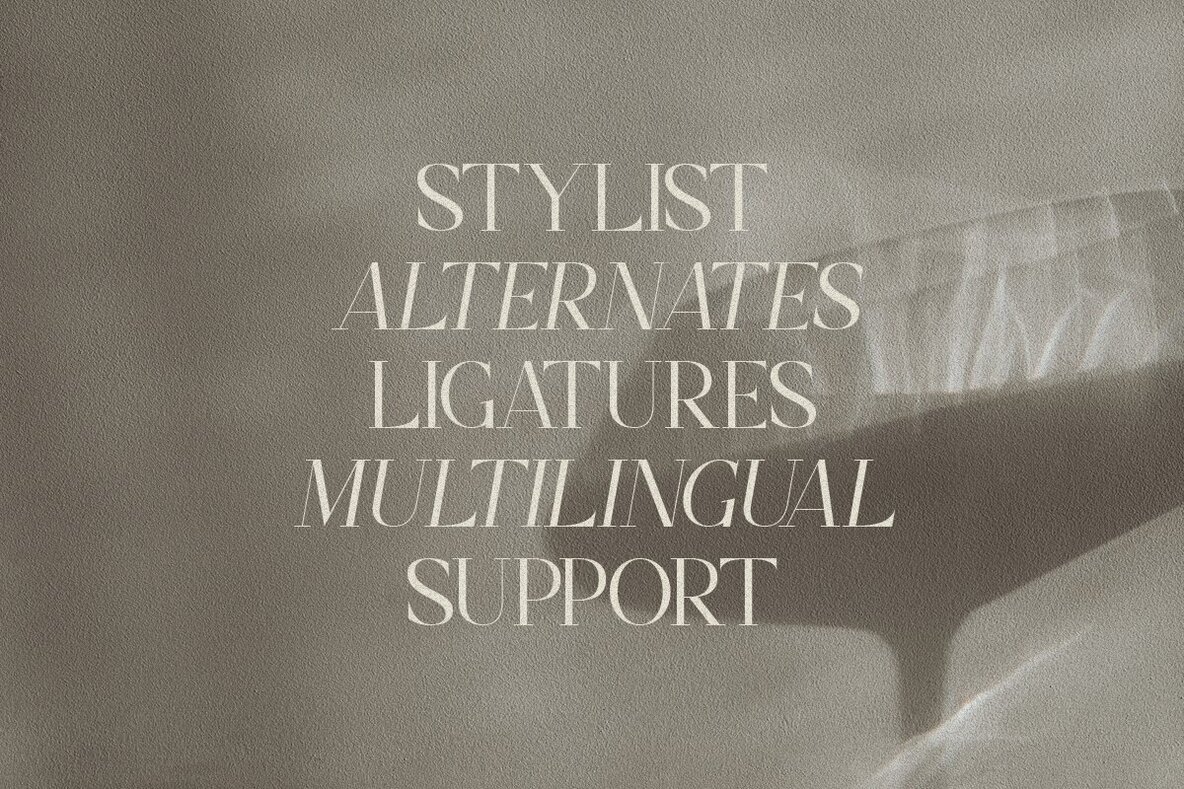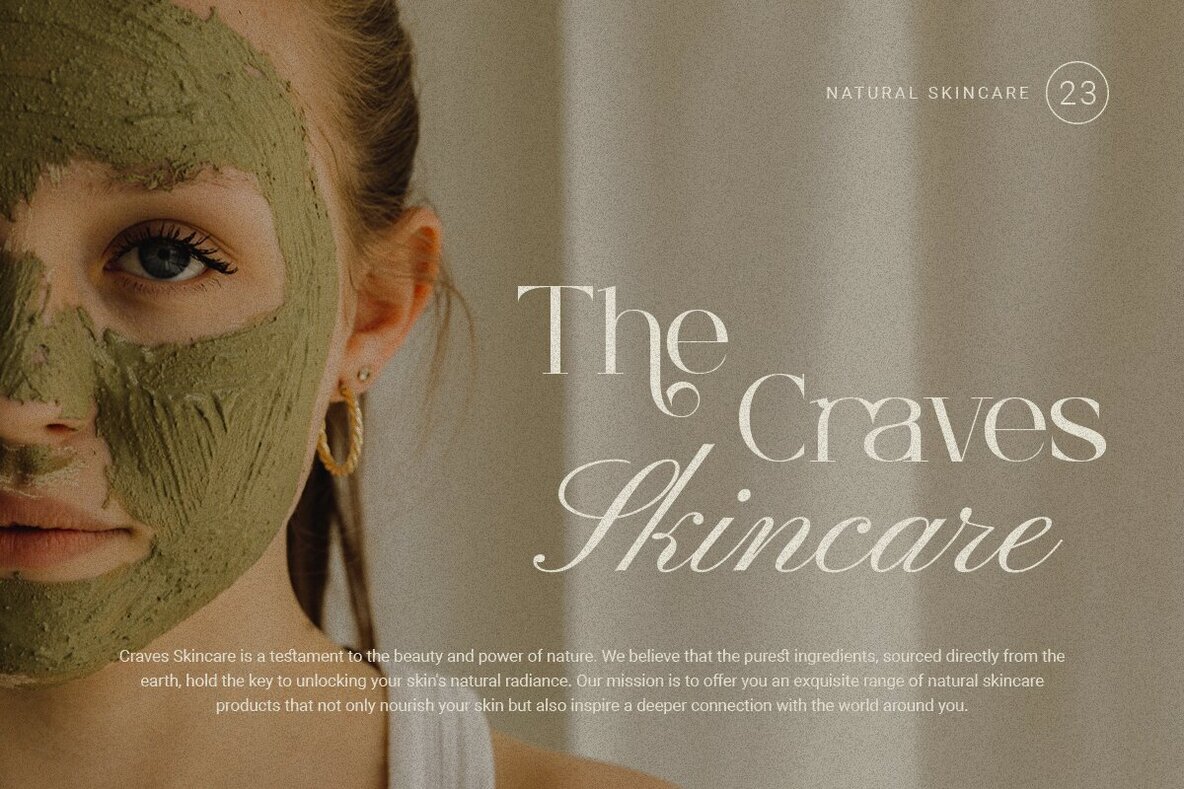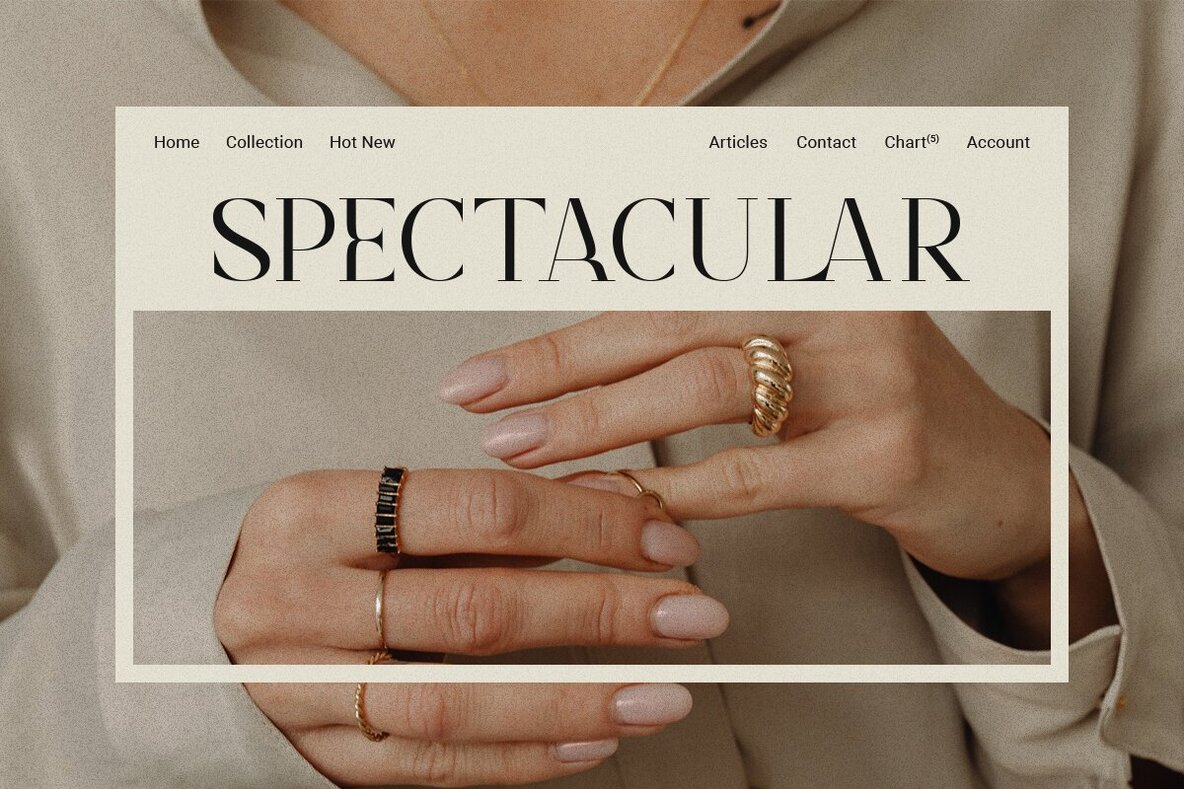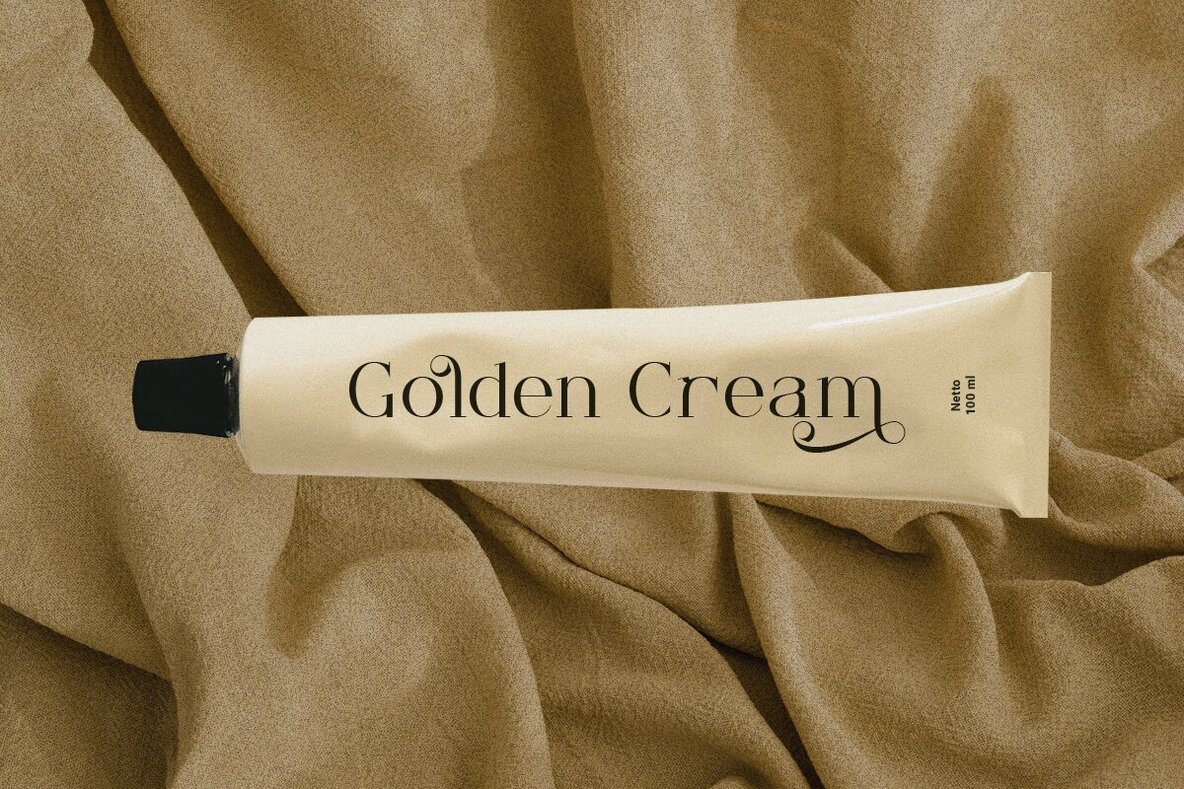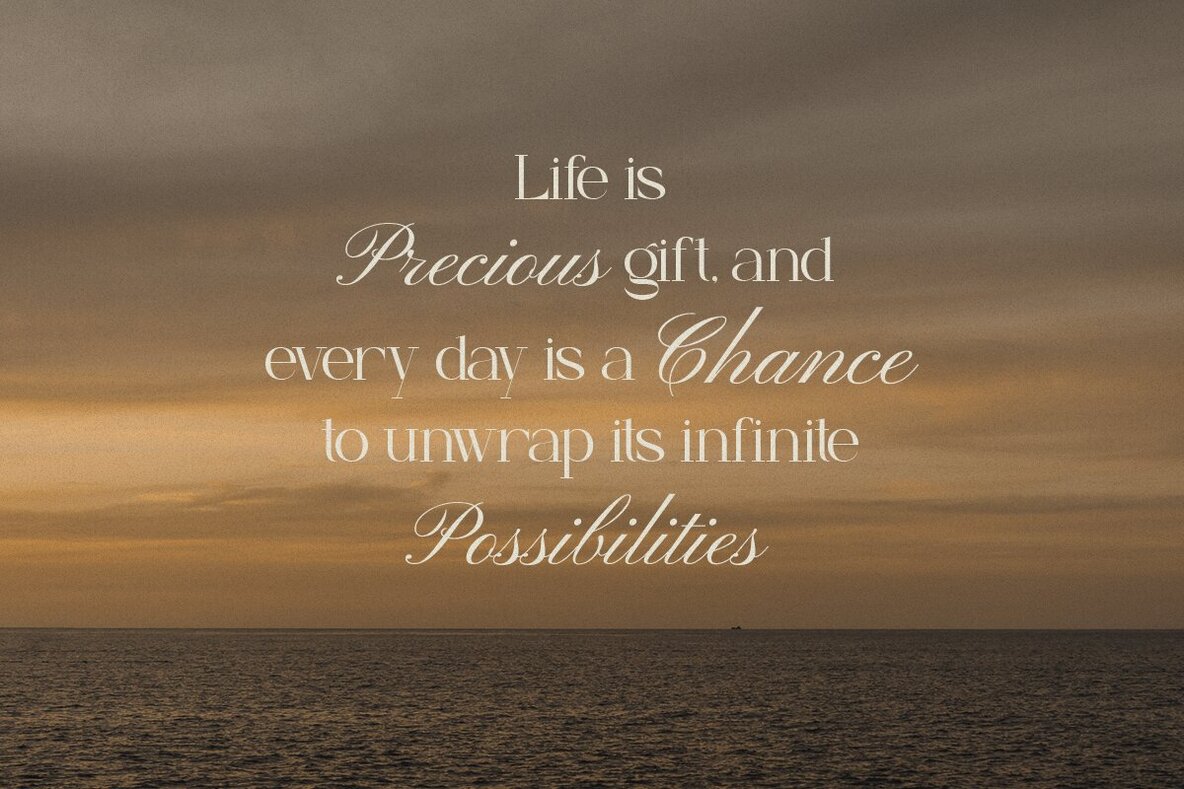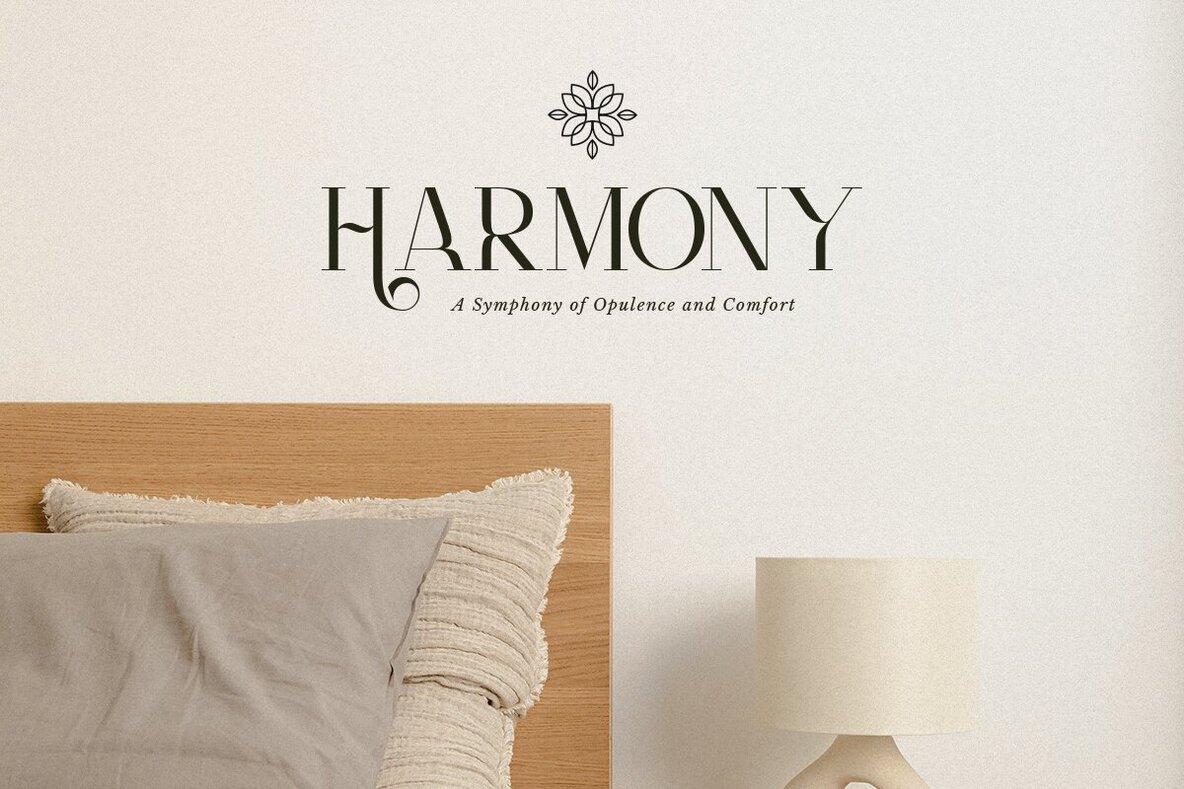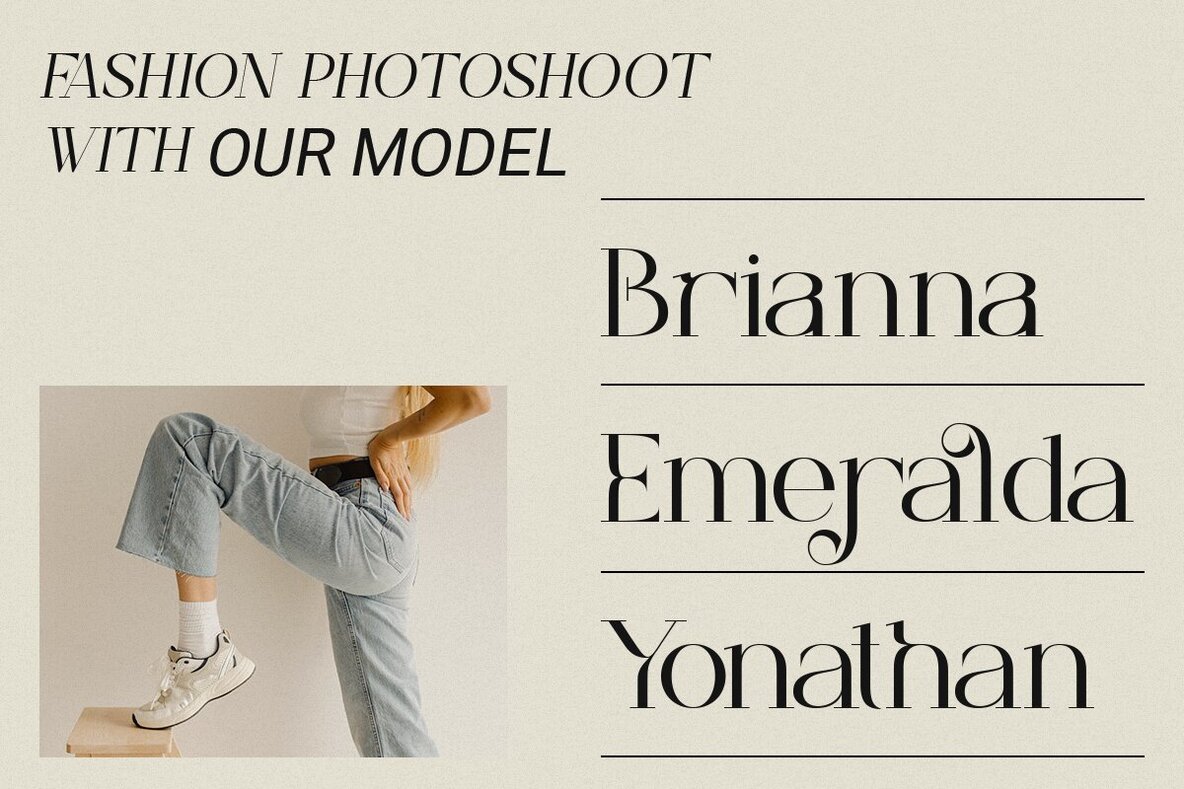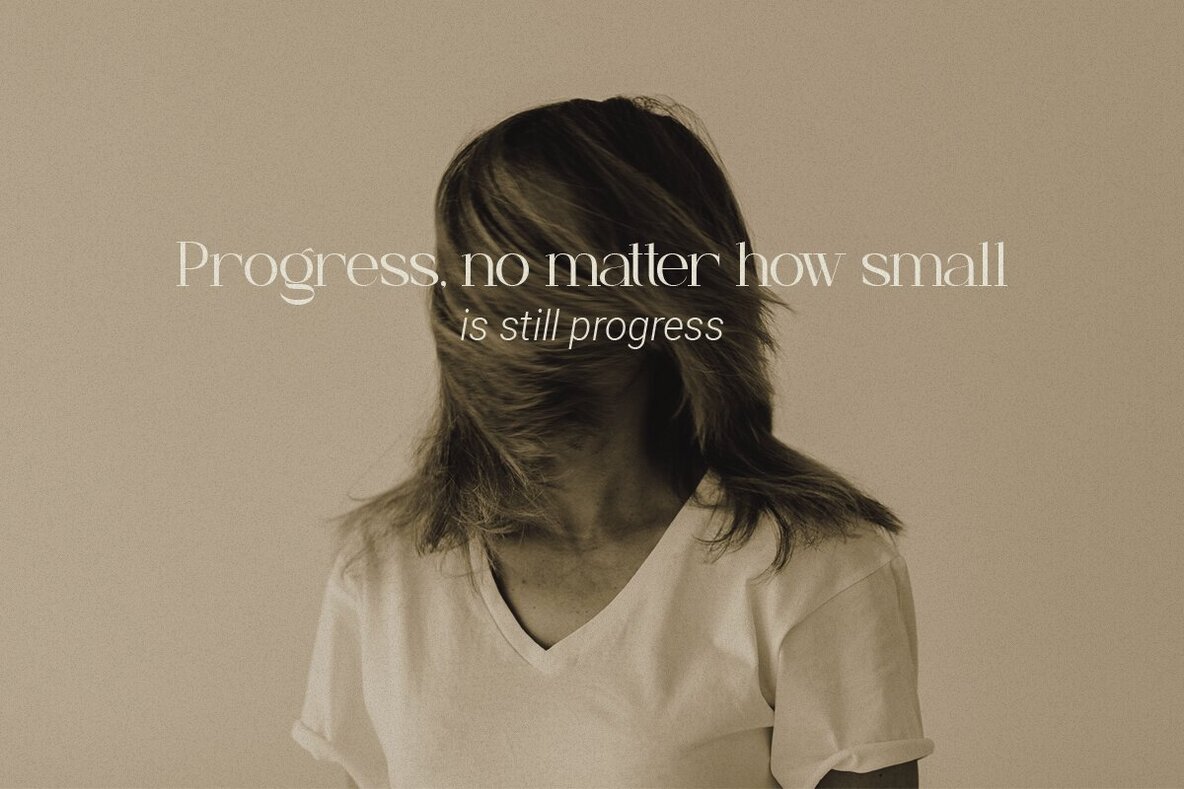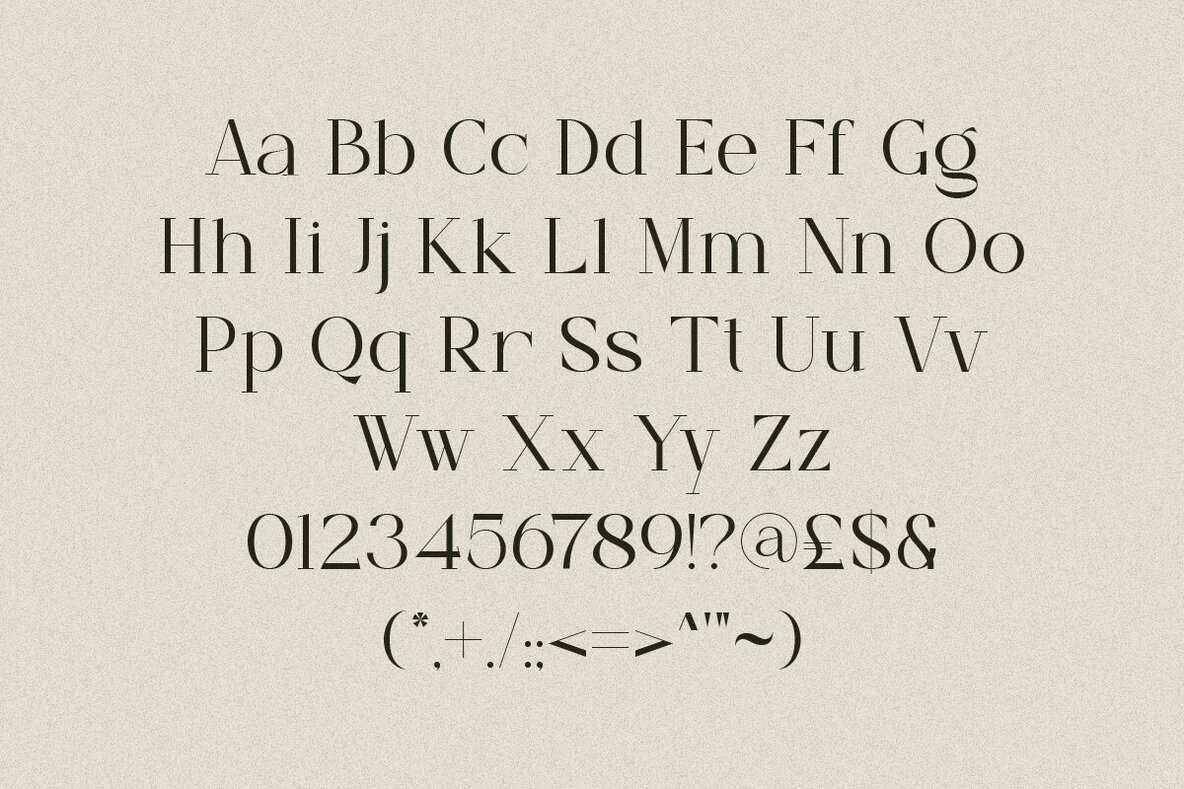
Roughly Begather Font
Roughly Begather Regular
Roughly Begather is a modern and elegant serif typeface, featuring unique alternatives and offering multilingual support with perfect kerning. This typeface is ideal for creating an elegant and luxurious look in logos, editorial designs, women's magazines, fashion brands, cosmetic brands, fashion promotions, modern advertising designs, invitation cards, art quotes, home decoration, book covers, special events, tote bags, T-shirts, advertising, and more. If you encounter any issues or notice anything that needs improvement while using this product, feel free to drop us a message. We value your feedback to further refine our products. Thanks and have a wonderful day.Roughly Begather: Modern Elegant Serif Typeface
Roughly Begather Features